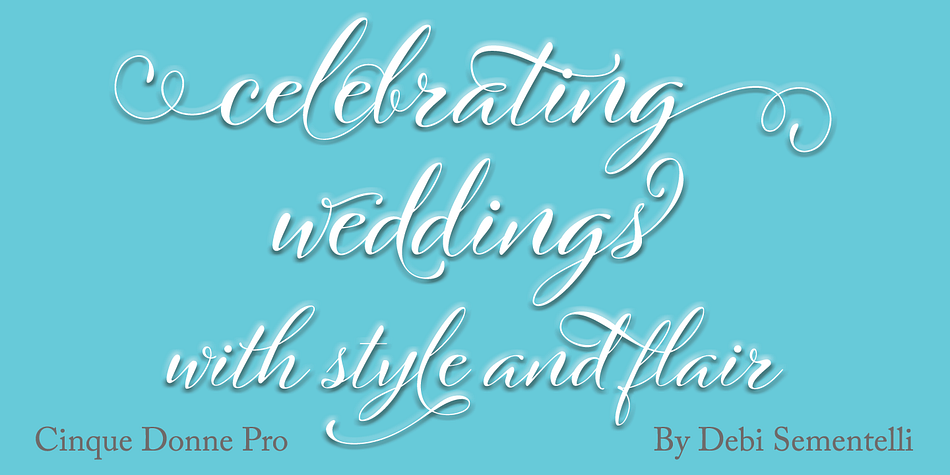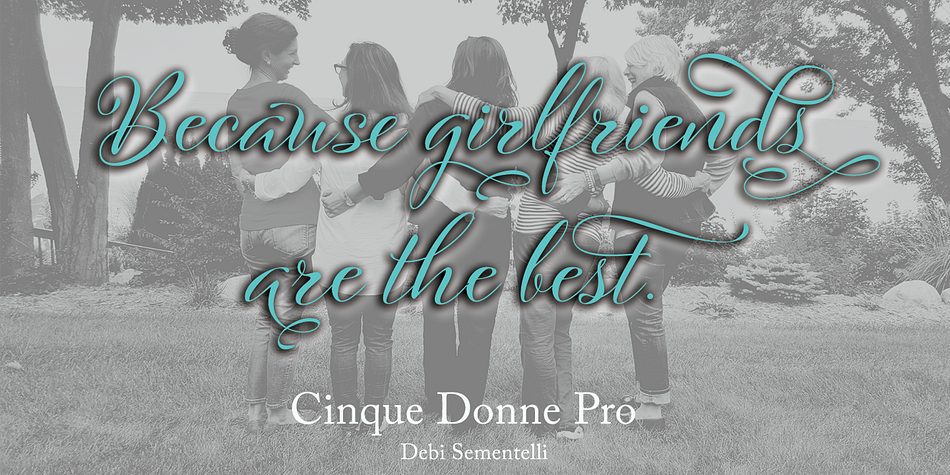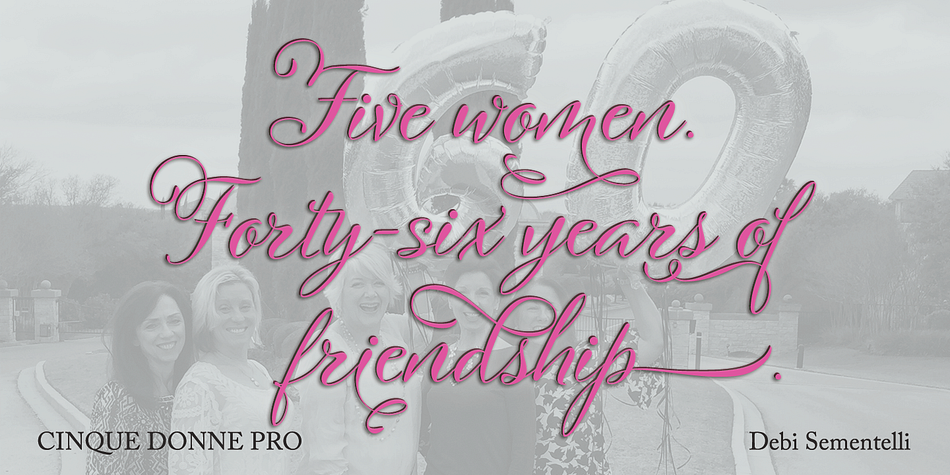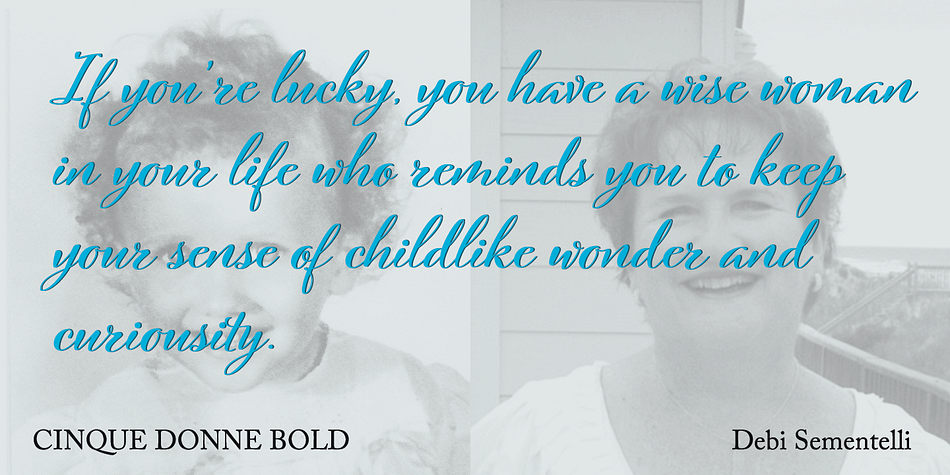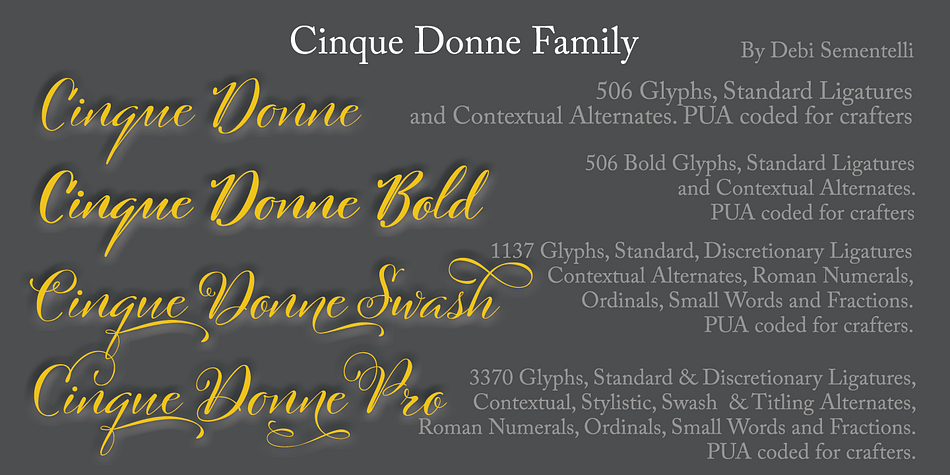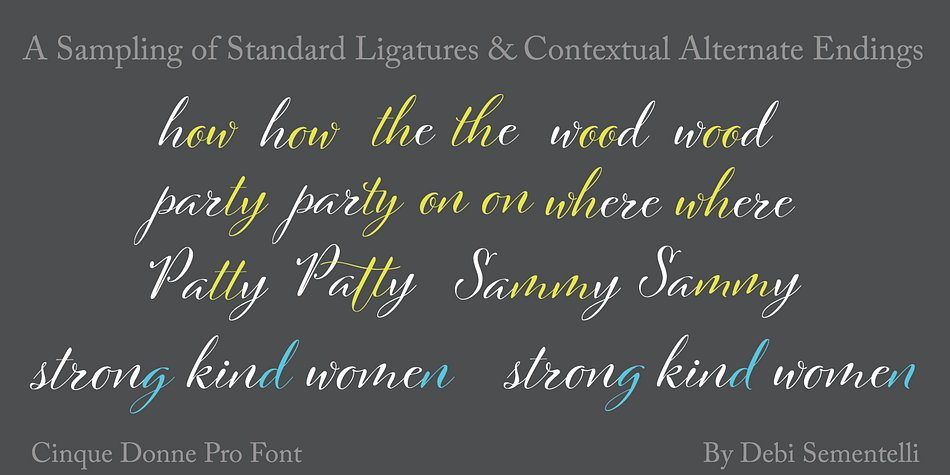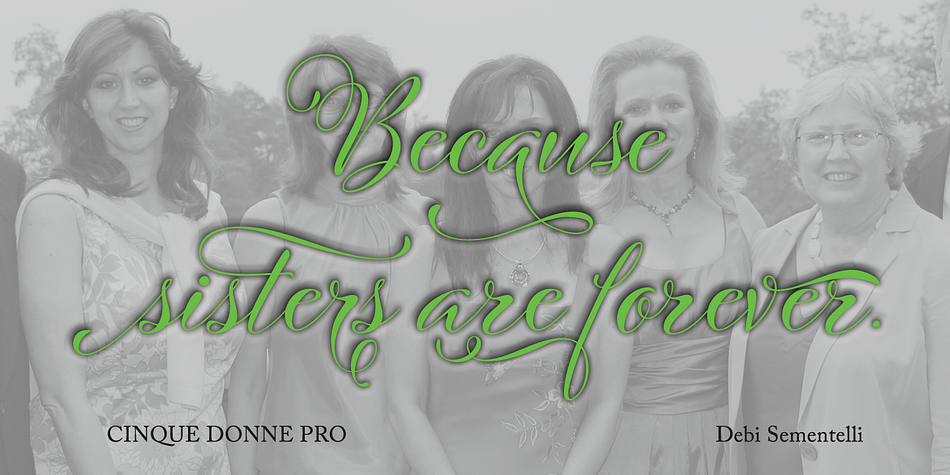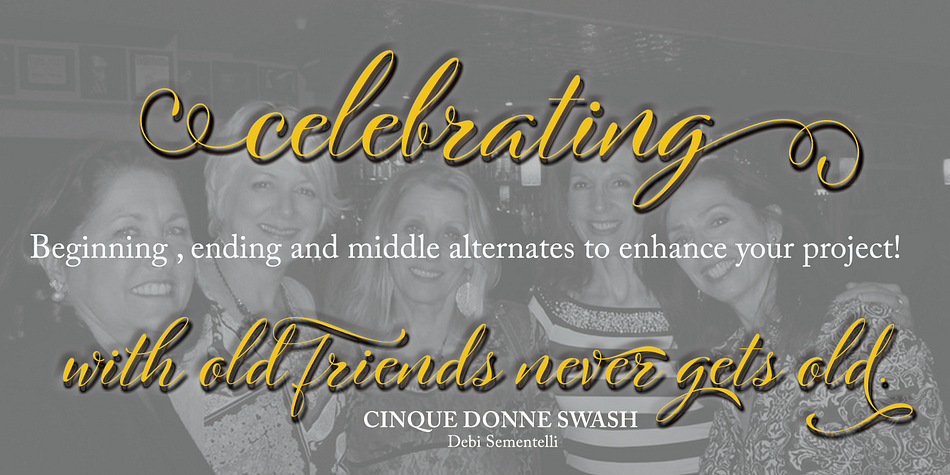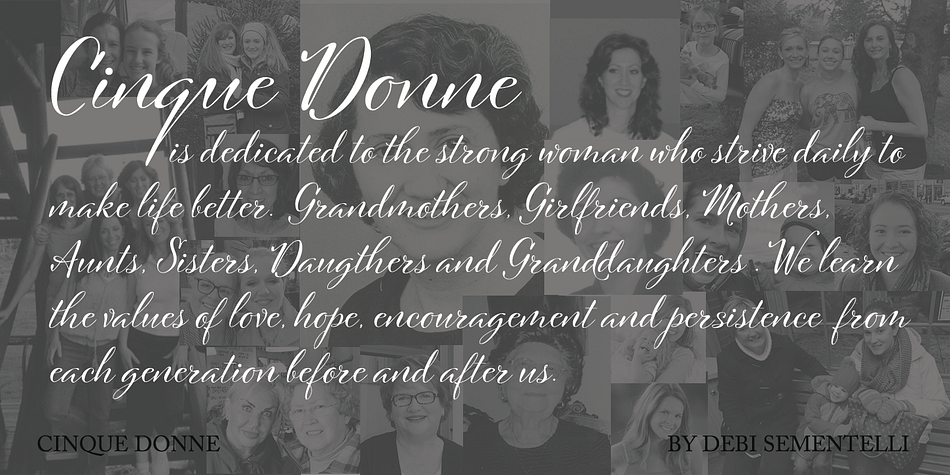
Designed by Debi Sementelli, Cinque Donne is a modern calligraphy font family. This typeface has four styles and was published by Debi Sementelli Type Foundry.
Cinque Donne means “Five Women” in Italian. It was inspired by the five sisters in my family as well as a group of five high school friends I have known for 46 years, aka “The Club Girls”. The Pro version has 3370 glyphs with all the bells and whistles!
Women are connectors, encouragers and supporters. Young, old, shy, extroverted, when you put us together, somehow we make a beautiful impact on each other’s lives. This is what Cinque Donne does in a visual way.
Some letters are simple and prefer to sit quietly. Others are flourished and proud and like the limelight in the middle of a word. And then there are alternates that are flexible and work in any number of surprising places. Stylistic sets can add a vivacious feel while contextual alternates bring better understanding. Classic or contemporary, subdued or flamboyant, these letters represent the variety of women that make life interesting for us all. Within the varied glyphs, I hope you find characters that remind you of the special women in your life. Let Cinque Donne salute them on the page!
The Cinque Donne Family includes: Cinque Donne, Cinque Donne Bold, Cinque Donne Swash and Cinque Donne Pro.
Cinque Donne Pro and Cinque Donne Swash include Swash, Stylistic and Titling Alternates, Contextual Alternates, Standard and Discretionary Ligatures, Roman Numerals & Fractions.
Style | Modern Calligraphy |